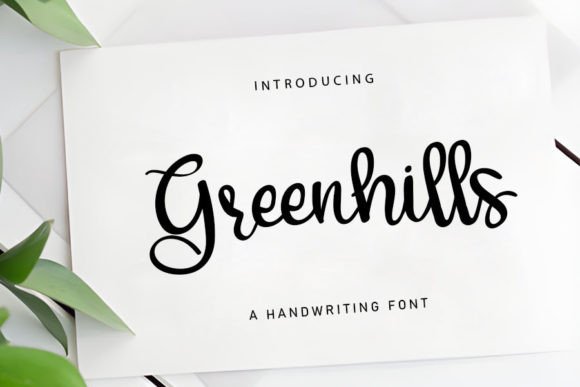
Greenhills Font: A Stroke of Inspiration for Your Creative Endeavors
In a digital realm saturated with uniformity, Greenhills Font emerges as a breath of fresh air, a distinctive script font brimming with personality and charm. Inspired by the artistry of handwritten signatures, Greenhills captivates with its natural flow, nuanced strokes, and an inherent sense of playfulness. It's a font that transcends the mundane, injecting a touch of whimsy and individuality into your creative projects.
Step into a world where your words dance across the page, carrying a unique narrative with each letter. Greenhills Font's organic style lends an air of authenticity to your designs, evoking the charm of handwritten notes and the intimacy of personal correspondence. Its graceful curves and sweeping strokes create a visual symphony that captivates the senses, leaving an indelible mark on the hearts and minds of your audience.
Explore the limitless possibilities of Greenhills Font, a versatile companion for your creative pursuits. Whether you're designing logos, crafting social media posts, creating eye-catching headlines, or penning heartfelt invitations, Greenhills empowers you to make a statement. Its inherent charm adds a touch of elegance to wedding invitations, imbues business cards with a sense of professionalism, and breathes life into posters, flyers, and brochures.
With Greenhills Font, you possess the key to unlocking a world of creative expression. It's the perfect choice for those seeking a font that speaks to their individuality, a font that transforms ordinary words into captivating narratives. Its user-friendly nature makes it accessible to designers of all skill levels, while its versatility ensures compatibility with a wide range of design software.
Don't settle for the ordinary; embrace the extraordinary with Greenhills Font. Let your imagination soar as you create designs that captivate and inspire. Experience the joy of crafting projects that reflect your unique style and leave a lasting impression. Greenhills Font is more than just a font; it's an invitation to embark on a creative journey where your ideas take center stage.